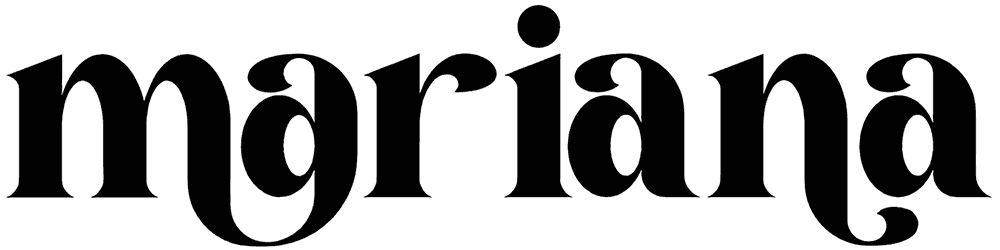
Mariana Font
Upscale, striking, and well-balanced are the qualities you can mention for welcoming Mariana. It’s a charming serif font, capturing all the attention in a second and expressing itself to the audience without help.
This font is easy to read, including all the characters in the pocket, which makes it more operational. So pick it out and start creating future projects, like a movie poster, apparel printing, magazine cover/text, branding design, and many more.